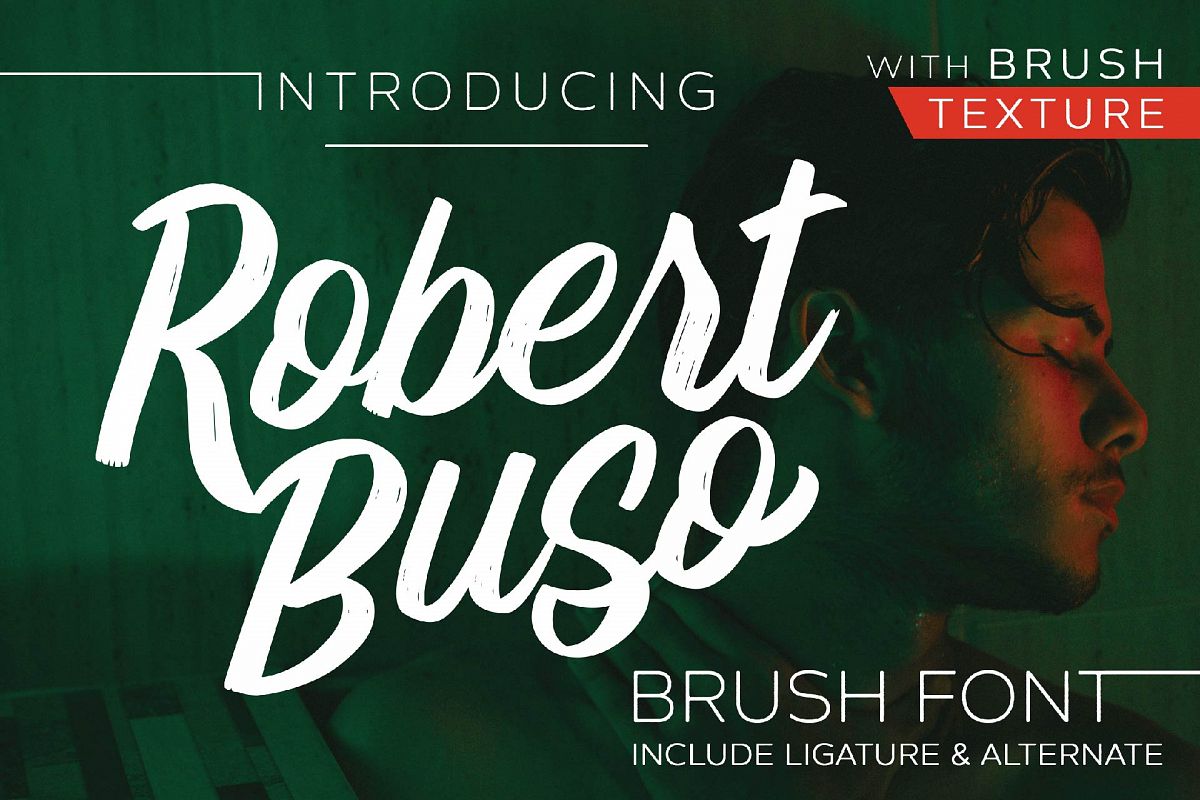
Robert Buso - Brush Font
Robert Buso
Robert Buso - Brush Font
So beautiful on invitation like greeting cards, branding materials, business cards, quotes, posters, and more!